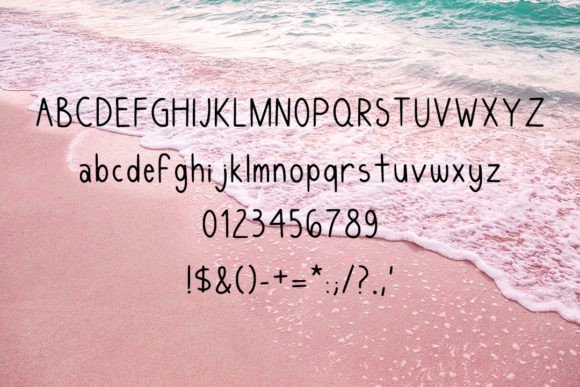
Introduction to Simple Sarah Font
Introducing Simple Sarah, a handwritten font, designed to give your projects a personal touch.
This font has a simple and natural look as if it was written with a pen or marker, making it perfect for creating a friendly and approachable vibe Use it for anything from invitations and greeting cards to logos and social media graphics.
Key Features of Simple Sarah Font
Why Choose Simple Sarah Font?
Simple Sarah Font offers exceptional quality and versatility, making it a valuable addition to your design toolkit. Whether you’re creating for personal projects or commercial use, Simple Sarah Font delivers professional results.